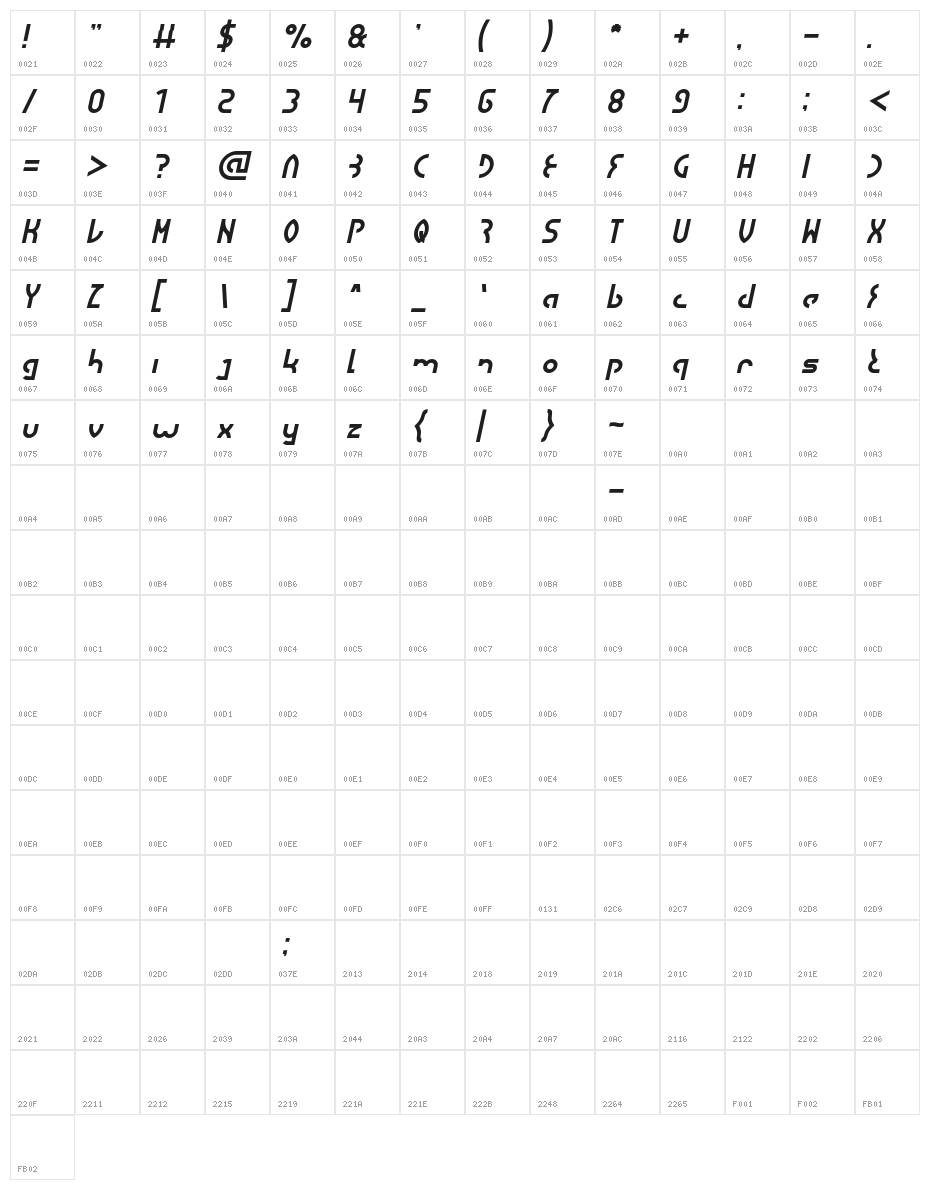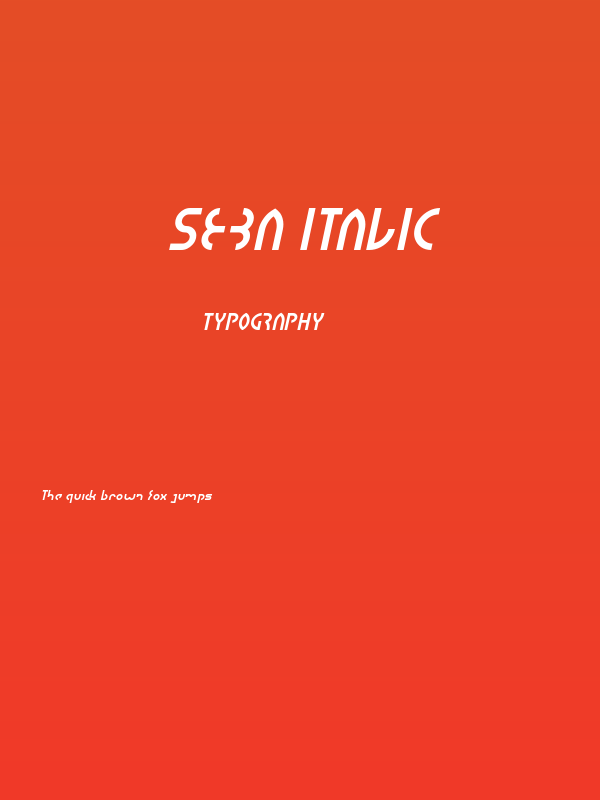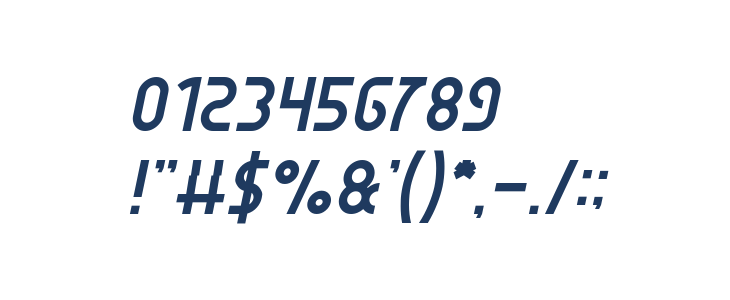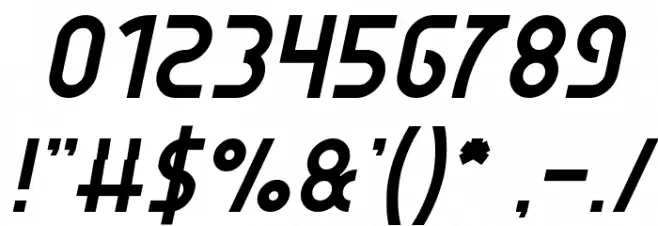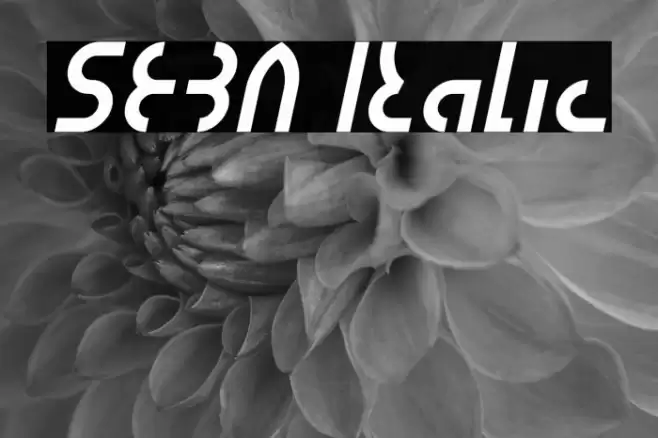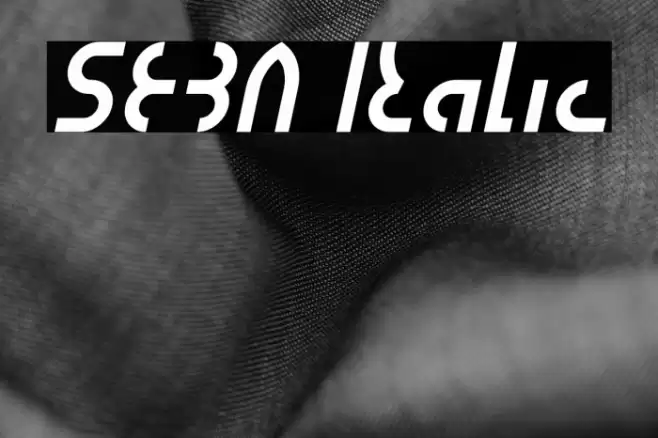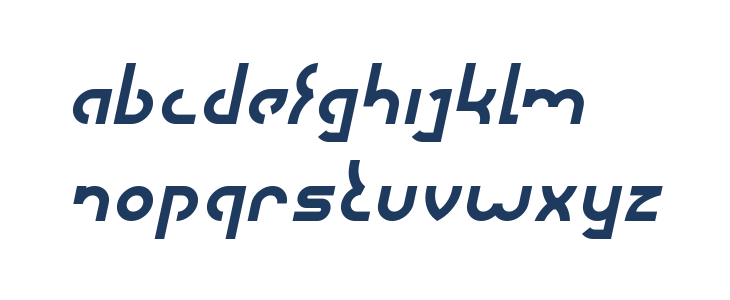
SEBA Italic Font
This font features a dynamic and modern italic style with a forward-leaning slant, giving it a sense of motion and energy. The characters are bold and have a unique geometric design, with sharp angles and smooth curves that create a striking visual impact. The uppercase and lowercase letters maintain a consistent style, while the numerals and special characters complement the overall aesthetic. The font's boldness and distinctiveness make it suitable for attention-grabbing designs.
| Proposed Projects | Ideal for branding, advertising, posters, and any project needing a bold, modern look. |